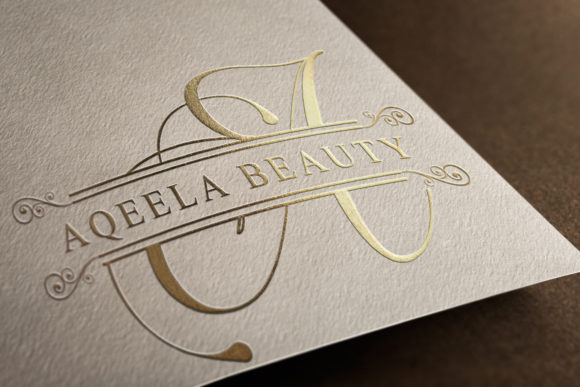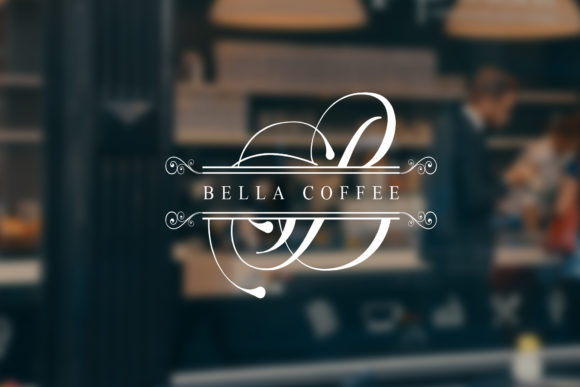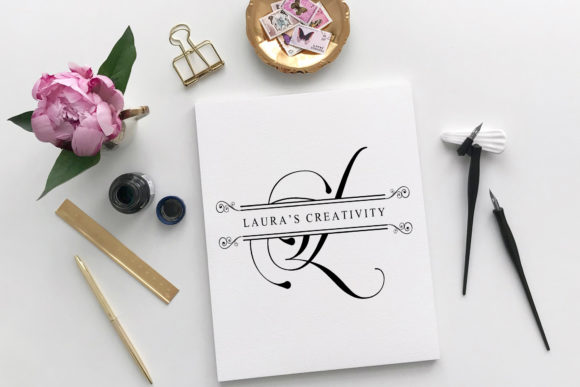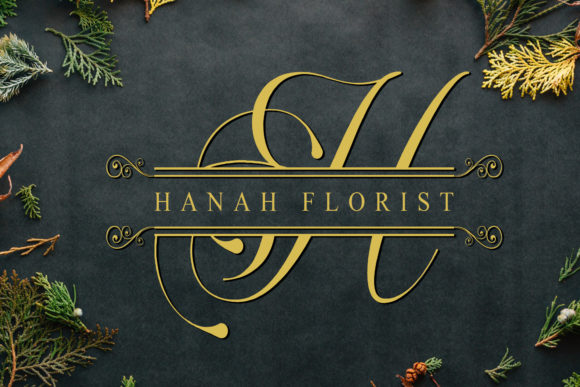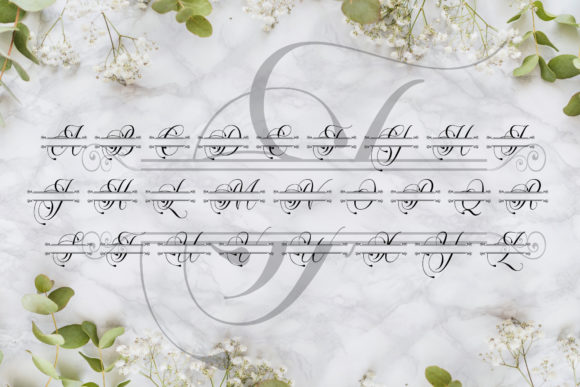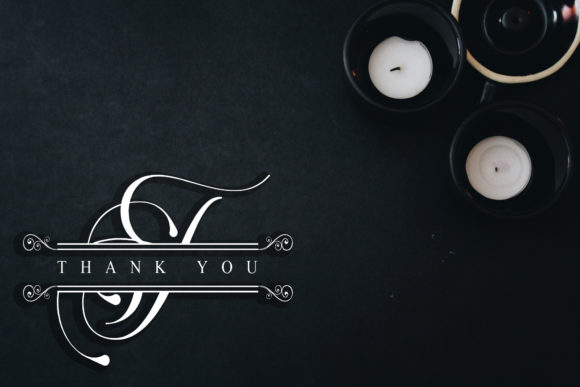
Flourish Monogram Font
About Flourish Monogram Font
Flourish Monogram is an elegant monogram. Use it to add a romantic and sophisticated touch to your designs. It’s perfect for wedding projects!